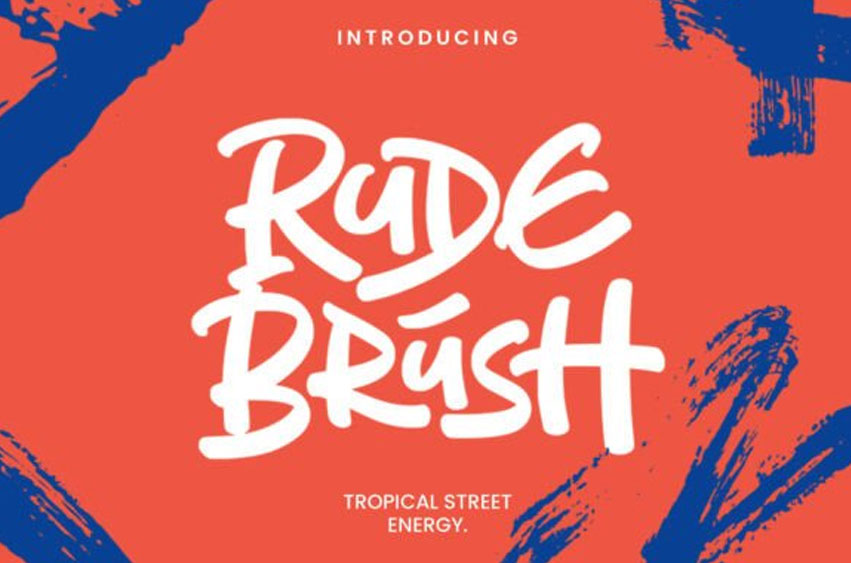
Rude Brush Font
Rude Brush Font Imbued with the audacious pulse of urban street life and the untamed rhythm of tropical surf culture, Rude Brush stands as a raw and kinetic display font. Its bold strokes etch an energetic narrative while its distinctive ligatures spin an intriguing design tale.
Make a powerful statement with Rude Brush – it’s your go-to typographic tool for impactful streetwear branding, avant-garde posters and standout packaging designs. Expect nothing less than an aesthetic revolution from this audacious font.